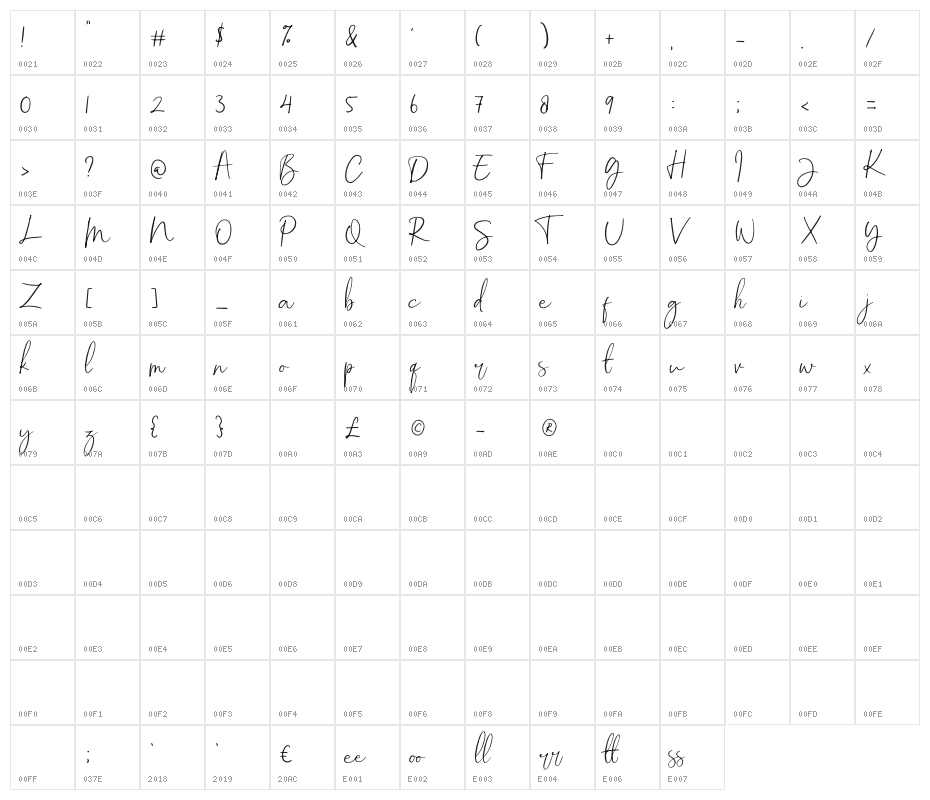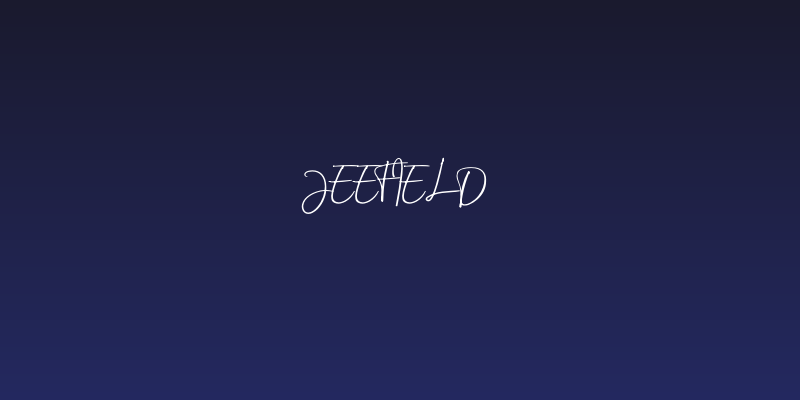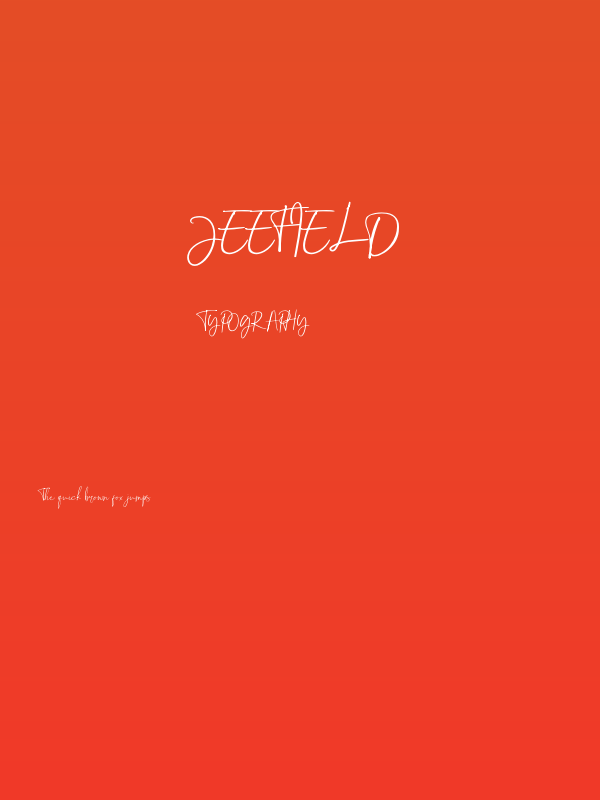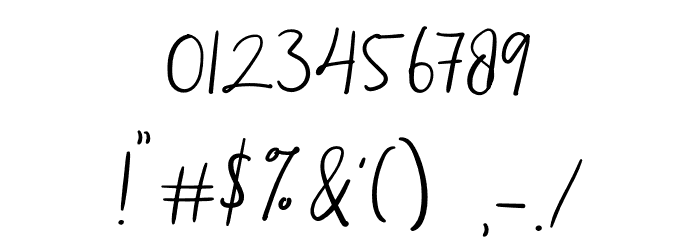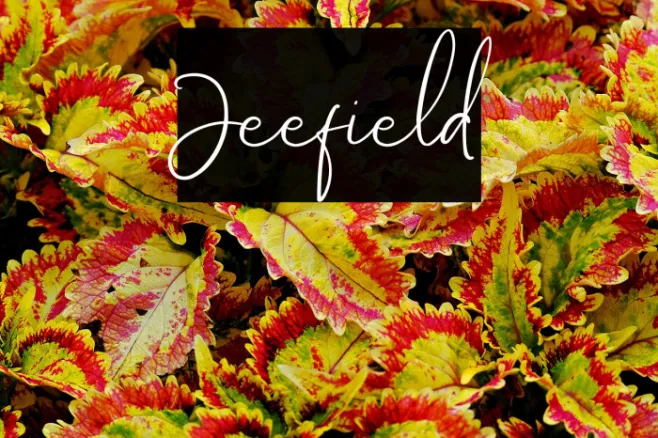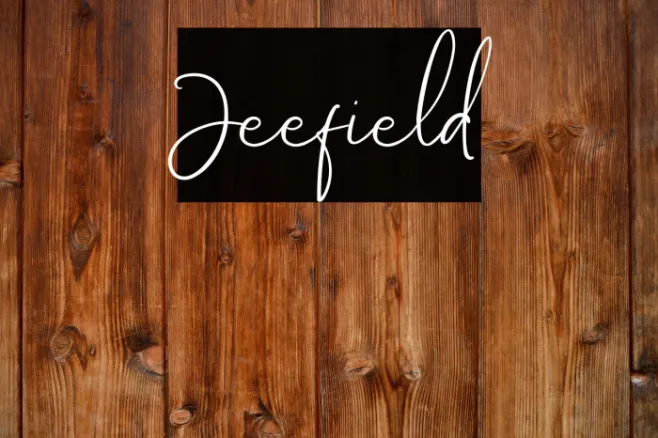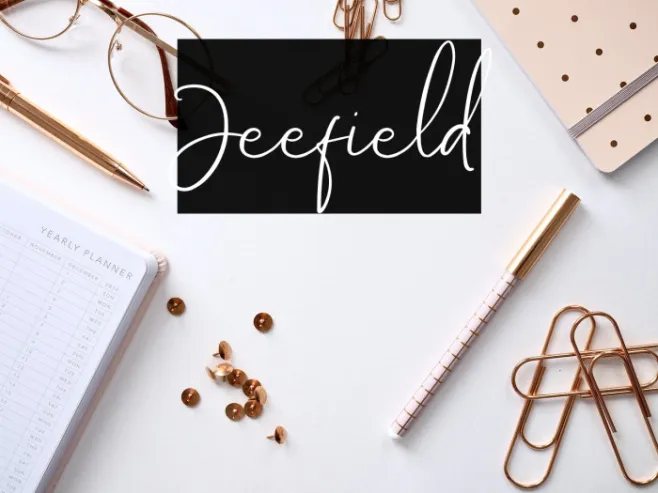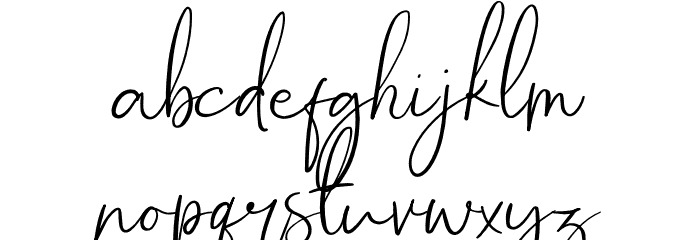
Jeefield Font
Jeefield Description
This font exhibits a lively and dynamic handwritten style, characterized by its fluid and continuous strokes. The uppercase letters are tall and slightly narrow, with a playful, casual flair that suggests a personal touch. The lowercase letters maintain a consistent flow, enhancing readability while preserving the font's unique personality. Numbers and special characters are crafted with the same attention to detail, ensuring a cohesive look across all text elements. The overall appearance is both elegant and approachable, making it suitable for a variety of creative applications.
| Overall Style | Casual, Elegant |
| Use Case | Headlines, Invitations, Personal Branding |
| Proposed Projects | Ideal for invitations, greeting cards, personal branding, and creative projects that require a personal touch. |